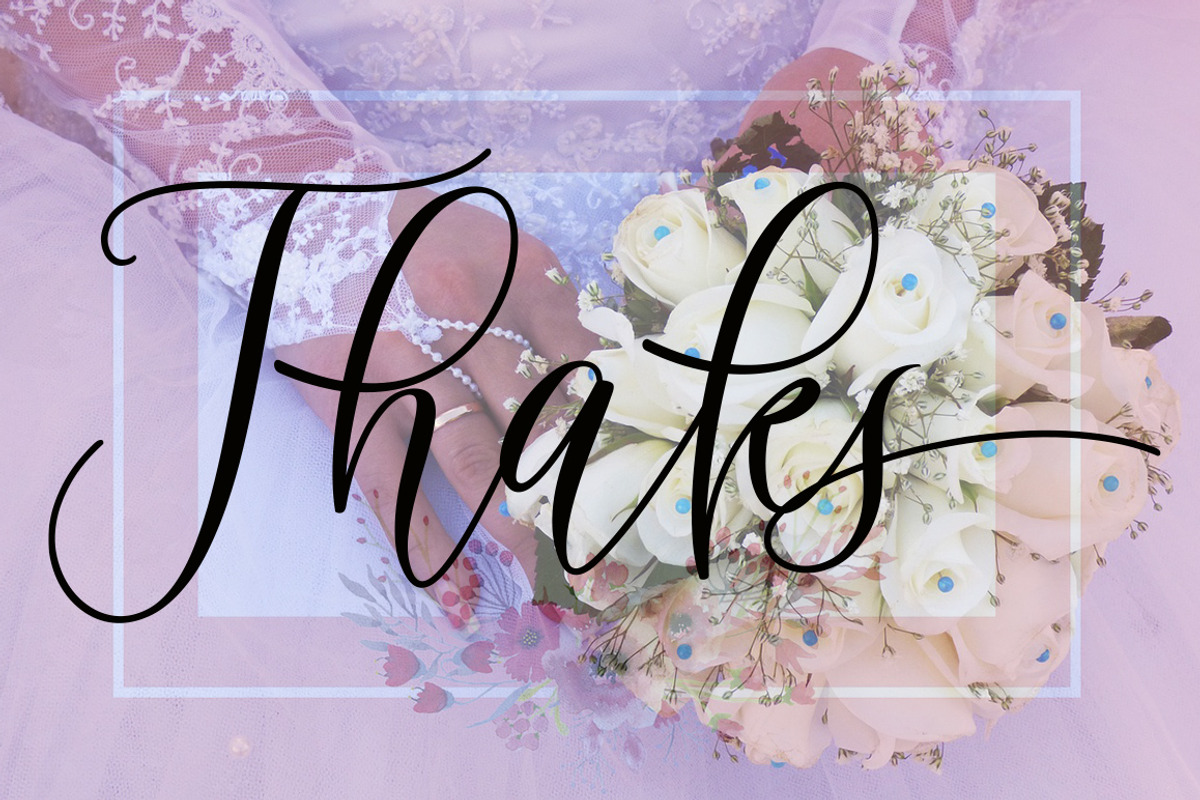
Wellyfitts
Introducing Wellyfitts Calligraphy An elegant new font! For those of you who need a touch of elegance and modern for your design, this font is created for you, especially for designers of invitation cards, this font is very supportive of your work!
Wellyfitts are built with OpenType features and include the start and end of swash, alternative swash characters for most lowercase letters, numbers, punctuation, alternatives, ligatures and also support other languages :)